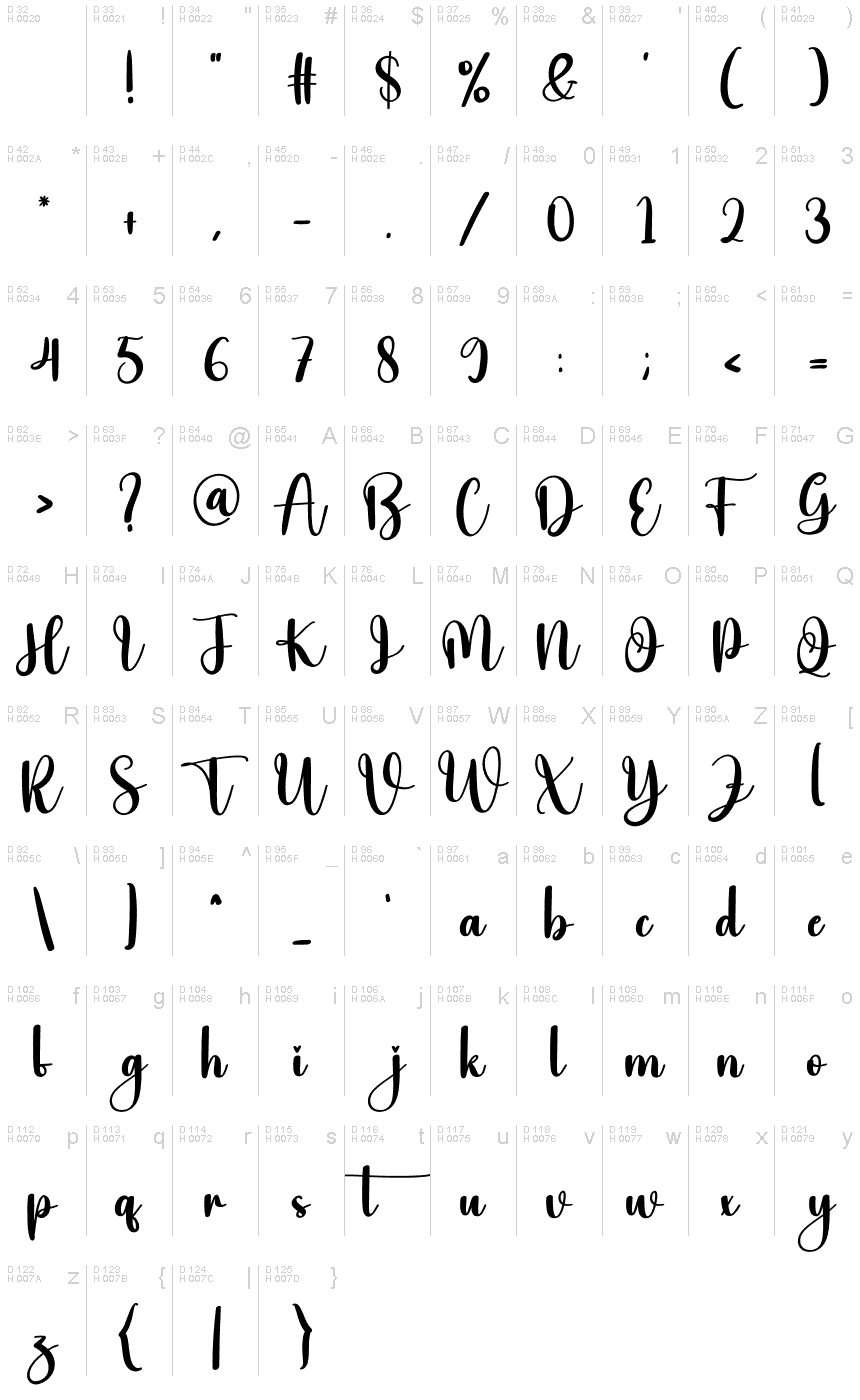
Author
The Author font, crafted by Scratchones, is an exquisite blend of modern calligraphy.
Its elegant and flowing strokes exude sophistication and grace, making it perfect for wedding invitations and other formal events. The semi-bold font type adds a touch of boldness, making it suitable for fashion magazines and luxury branding projects. With its medium width, the Author font is also ideal for website headers and blog titles, adding a touch of elegance to any online platform.
Let the Author font elevate your designs with its timeless beauty and versatility.
The latest style letters are perfect for wall displays, wedding invitations, social media post logos, advertisements, product packaging, product designs, labels, photography, watermarks, invitations, stationery, and any project that requires taste handwriting.